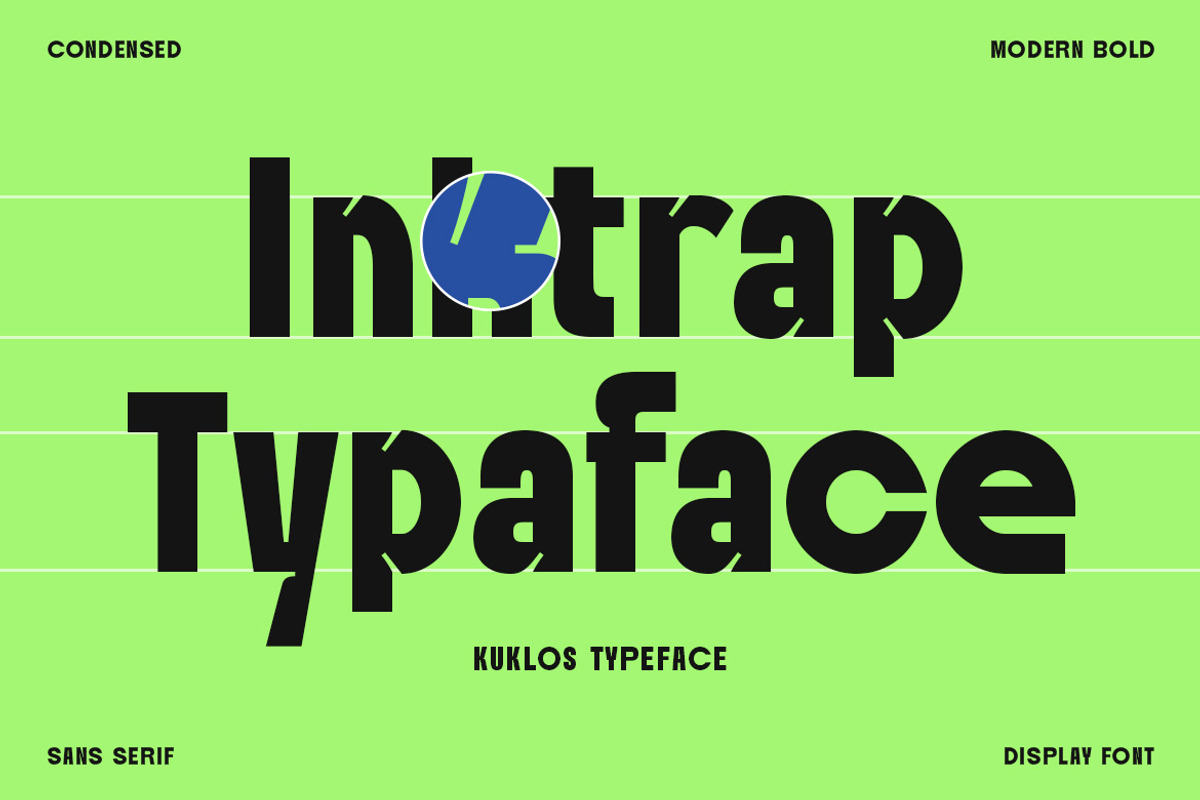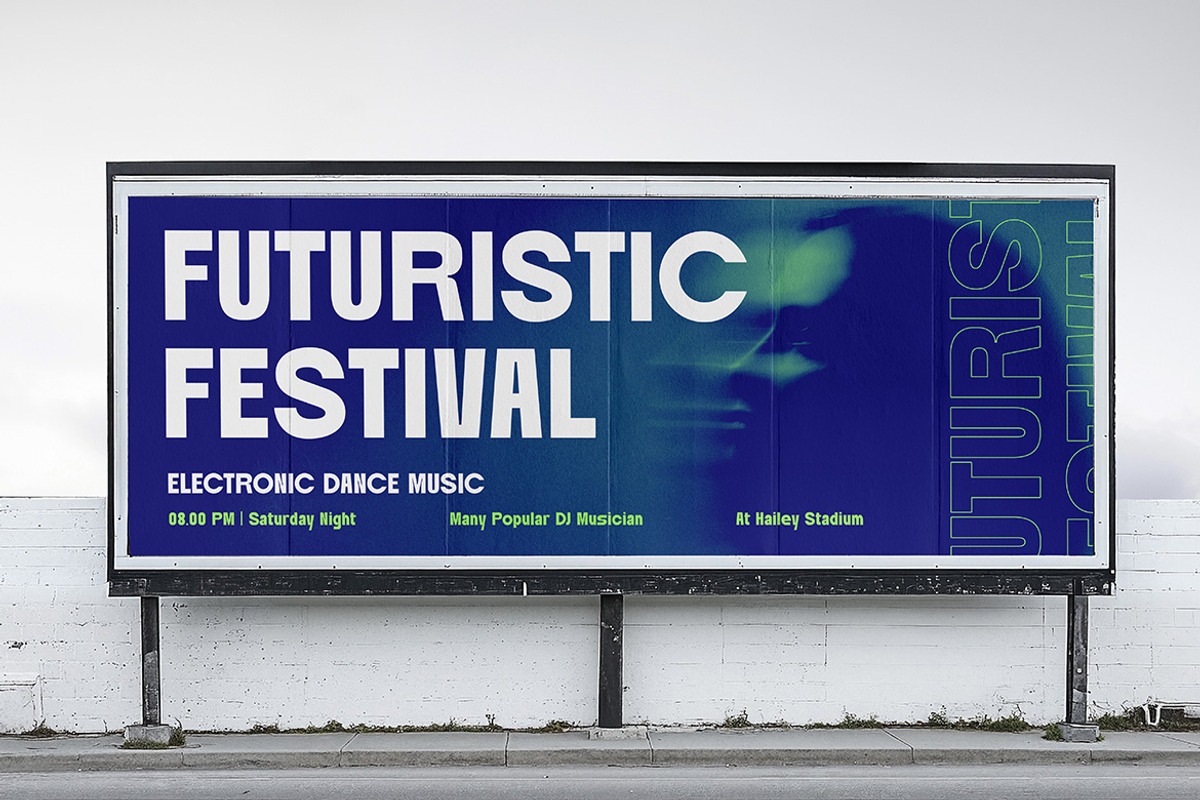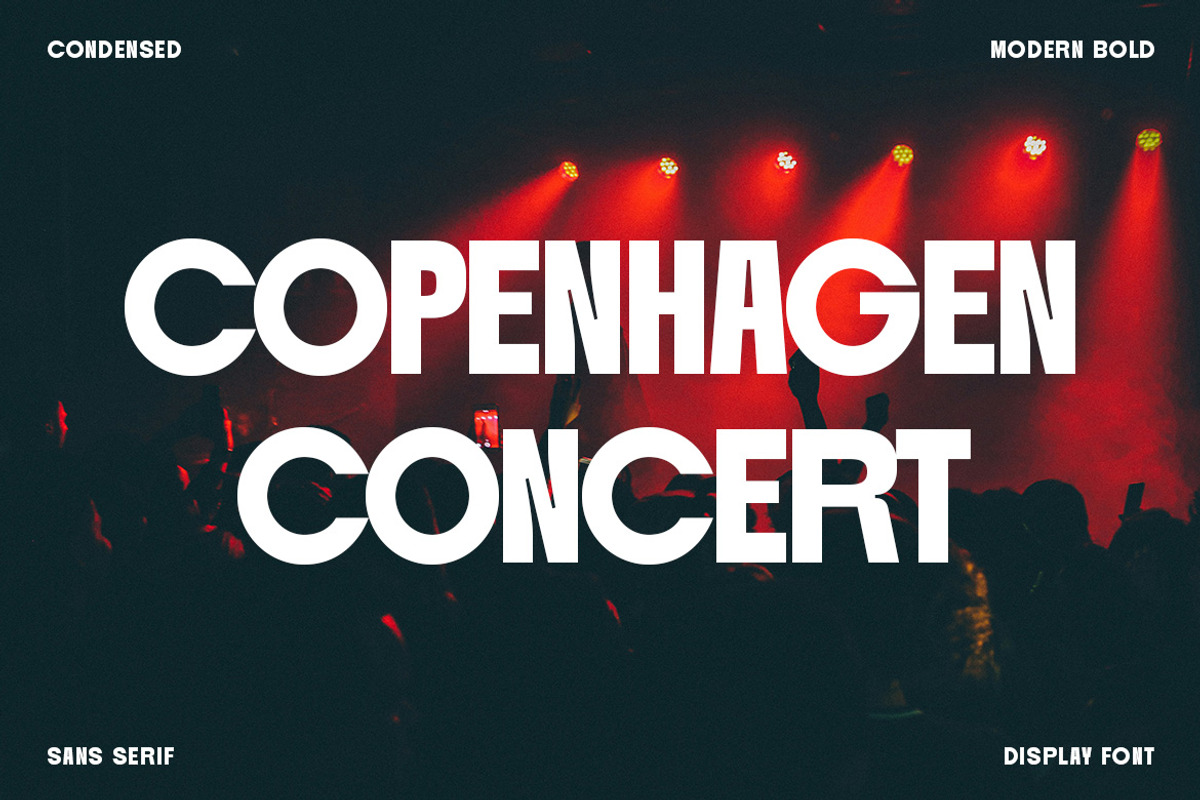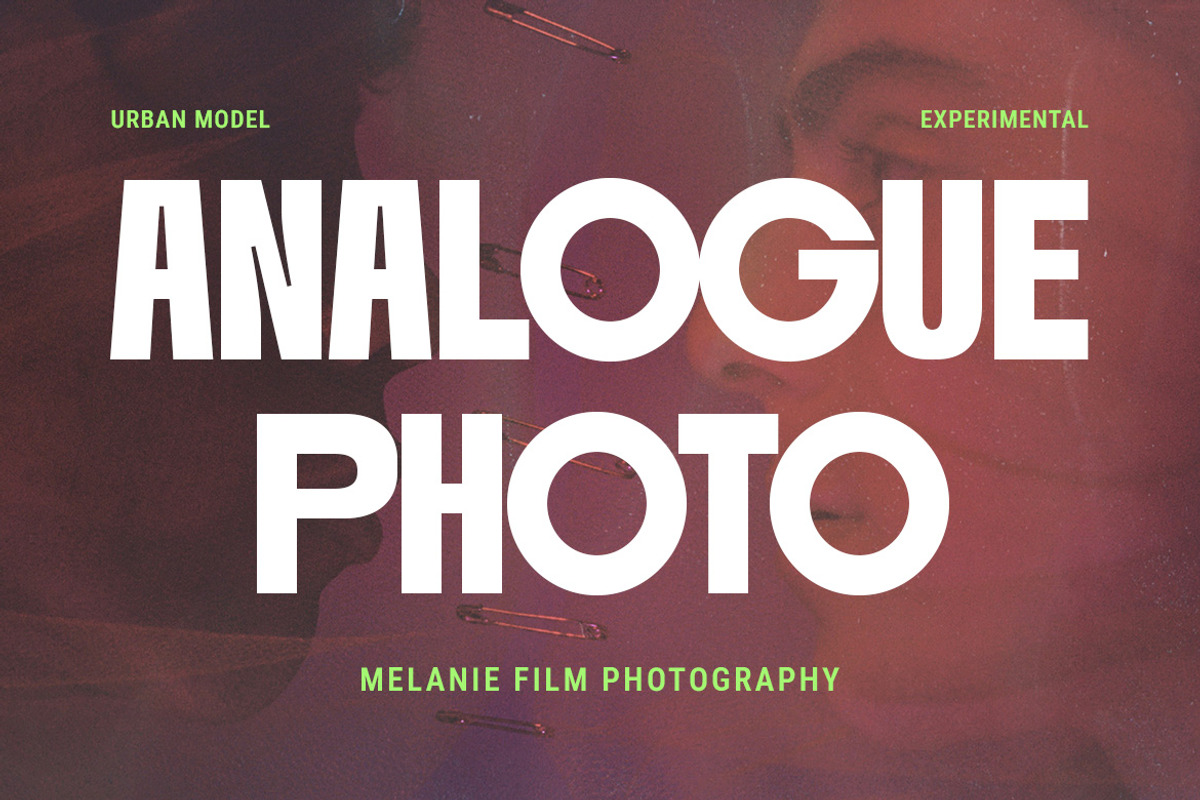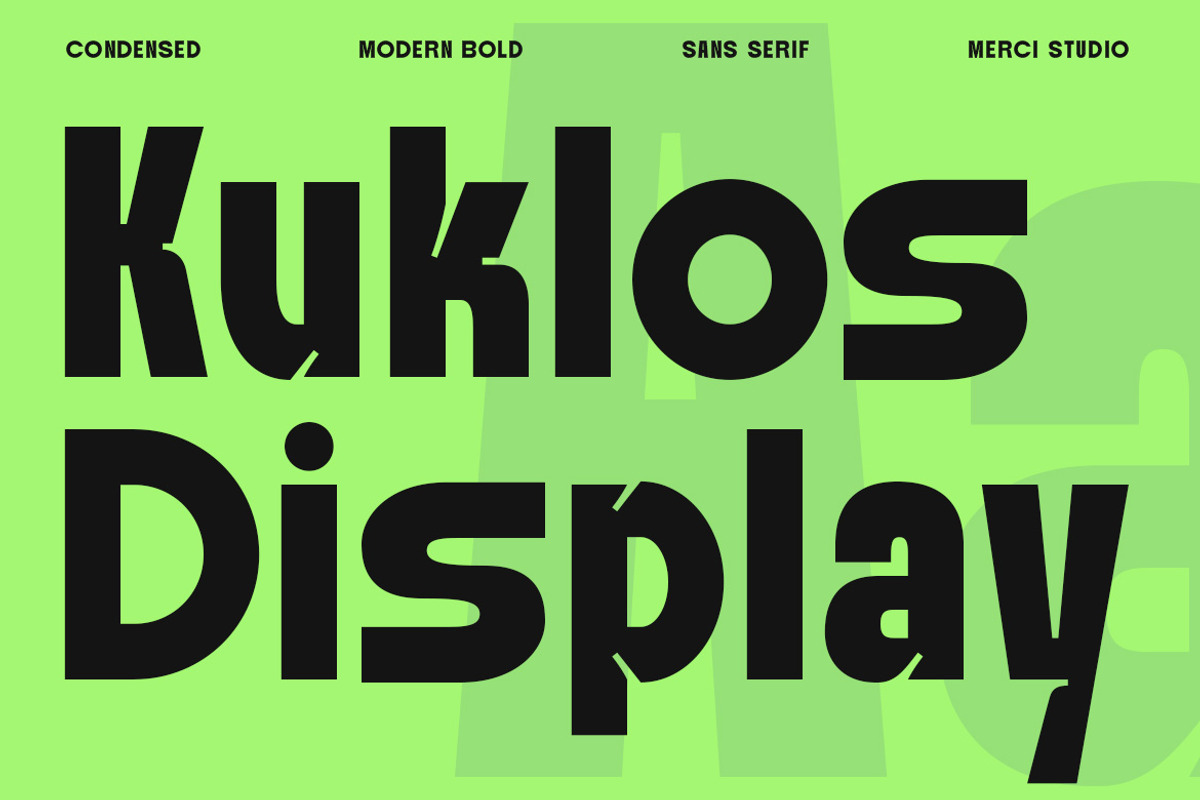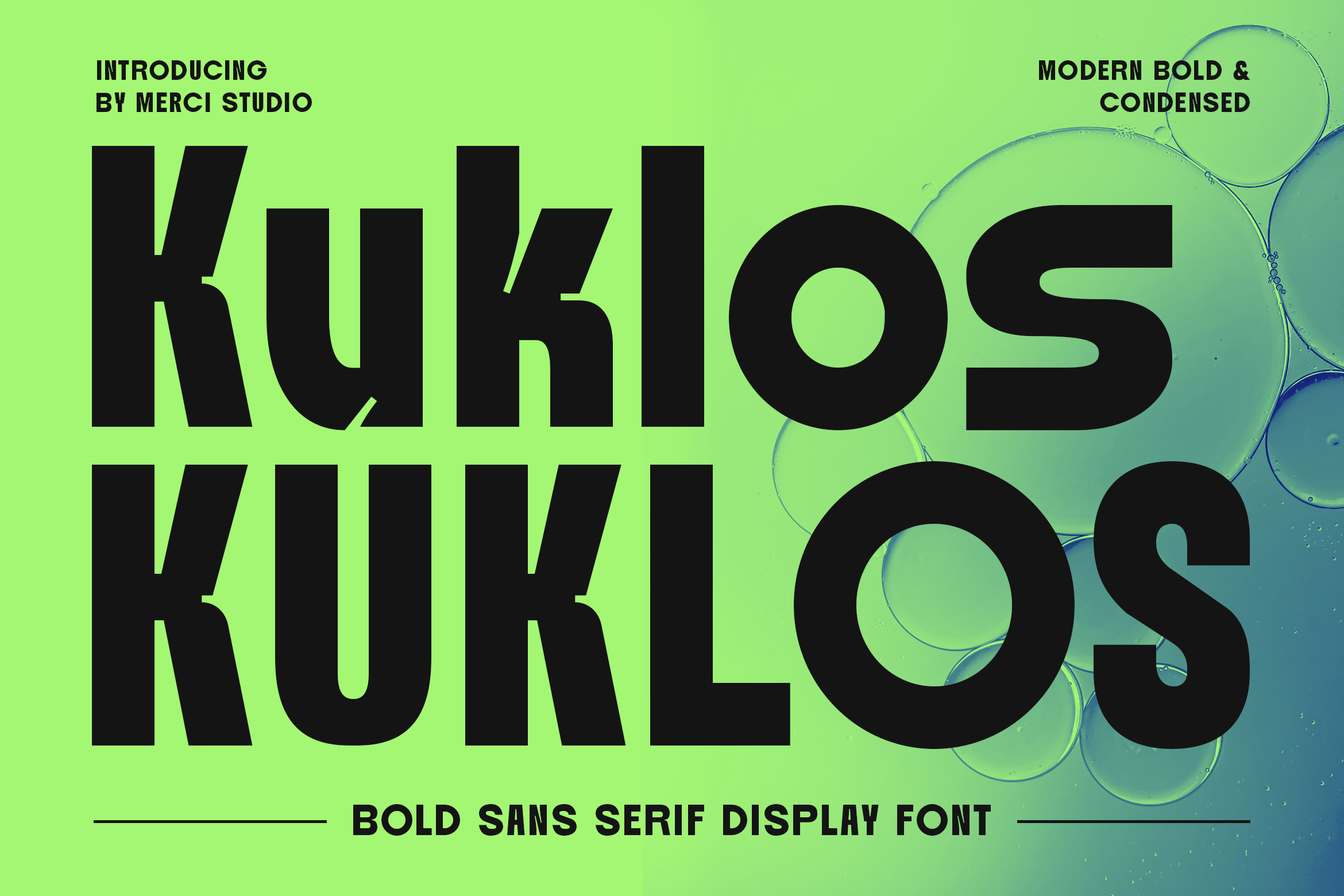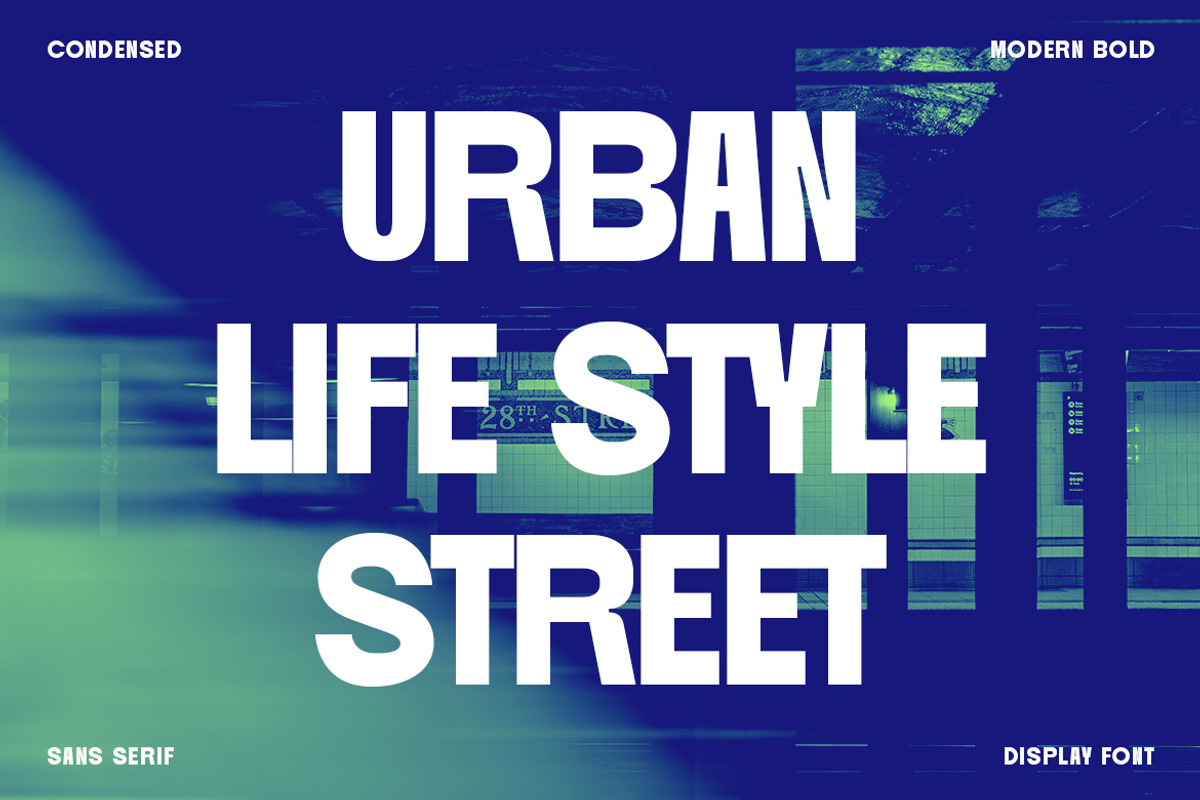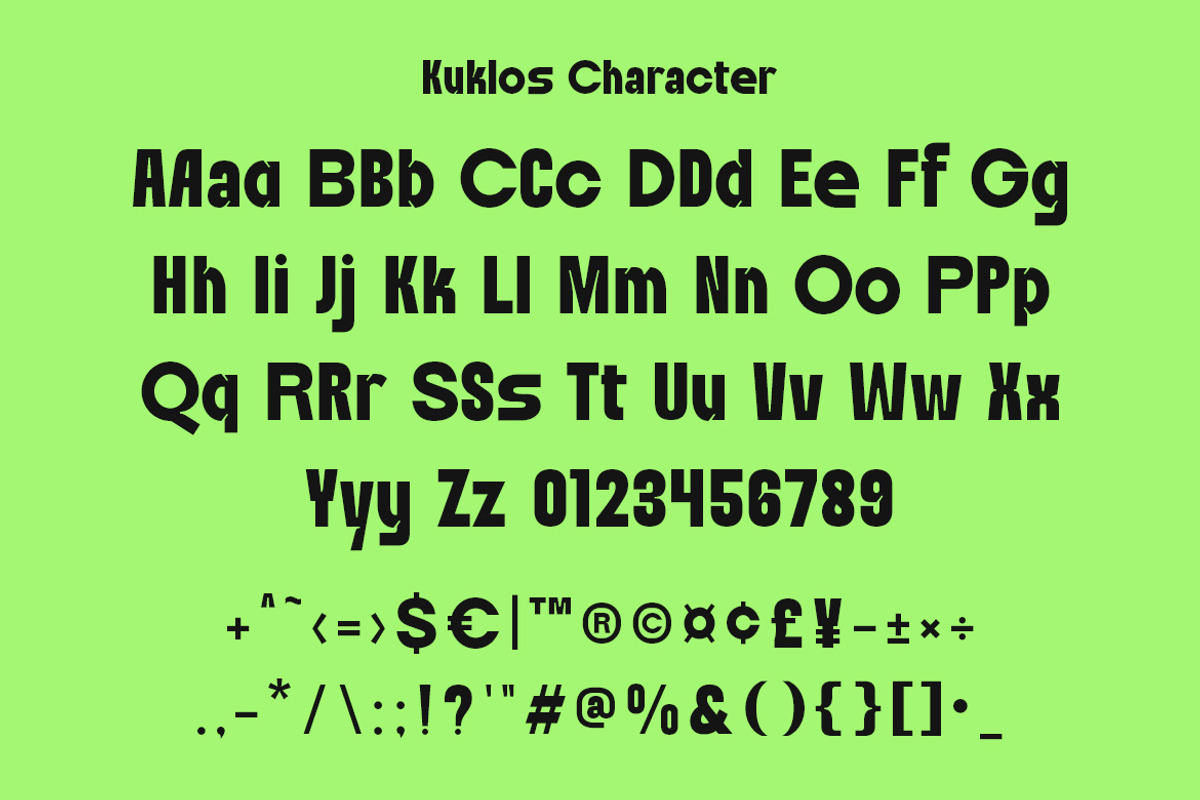
Kuklos – Bold Display Font
Kuklos – Bold Sans Serif Display Font
Kuklos is a bold sans serif typeface that embodies strength, clarity, and modern impact. Designed with a condensed structure and heavy weight, it delivers maximum visual presence while maintaining a clean and professional look. This font is perfect for projects that demand attention—whether it’s branding, advertising, editorial layouts, or large-scale headlines. Its versatility lies in its ability to stand strong on its own while also pairing seamlessly with lighter fonts, making it a valuable addition to any design toolkit. With its modern yet timeless style, Kuklos ensures your message is delivered with authority and style.
* Bold and condensed sans serif structure
* Strong legibility for headlines and display use
* Ideal for branding, editorial, posters, and modern campaigns
* Professional and impactful design
* Uppercase Letters
* Numbers & Punctuation
* Ligature & Alternate Character
* Unique Hand-Drawn Style